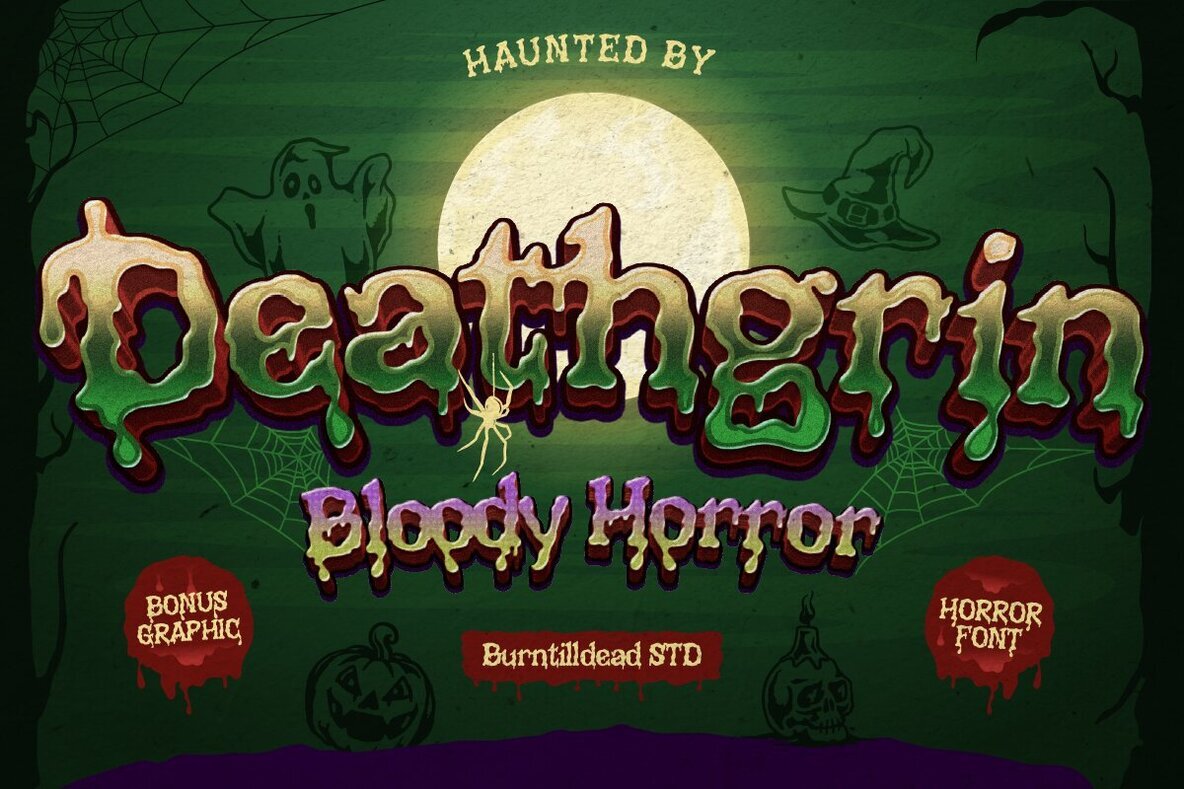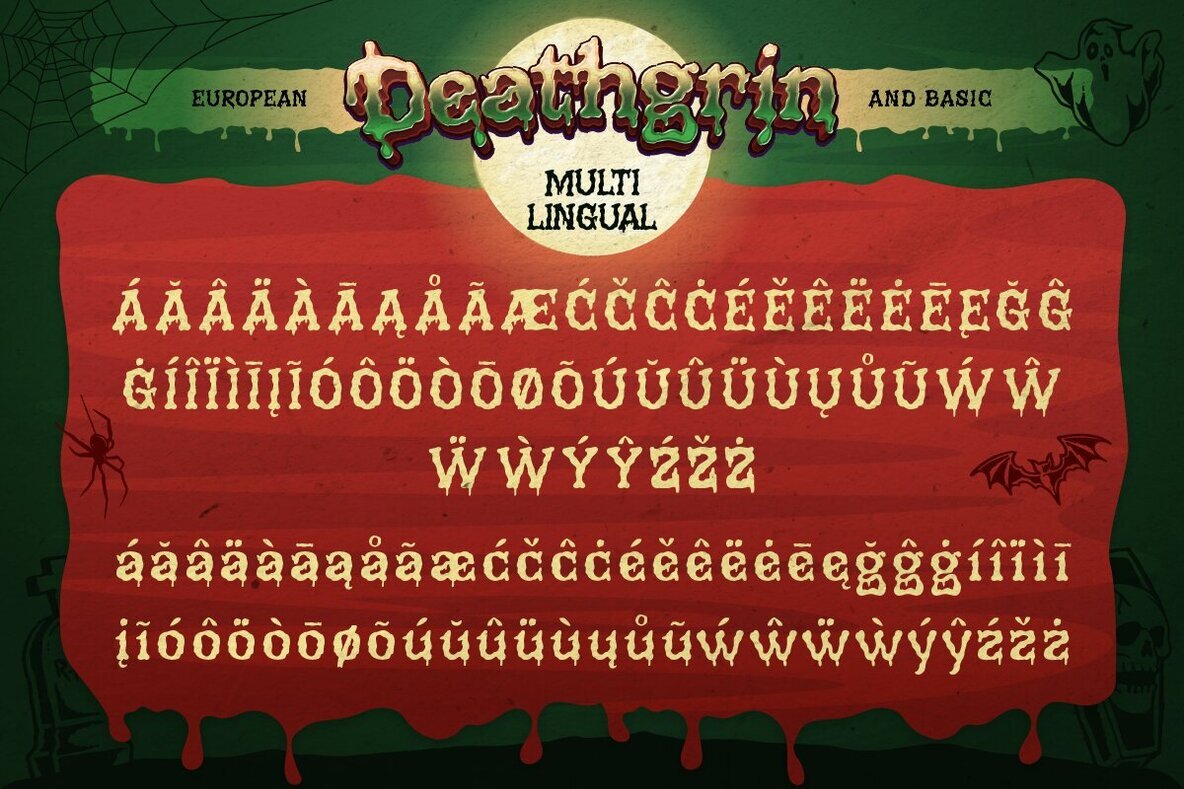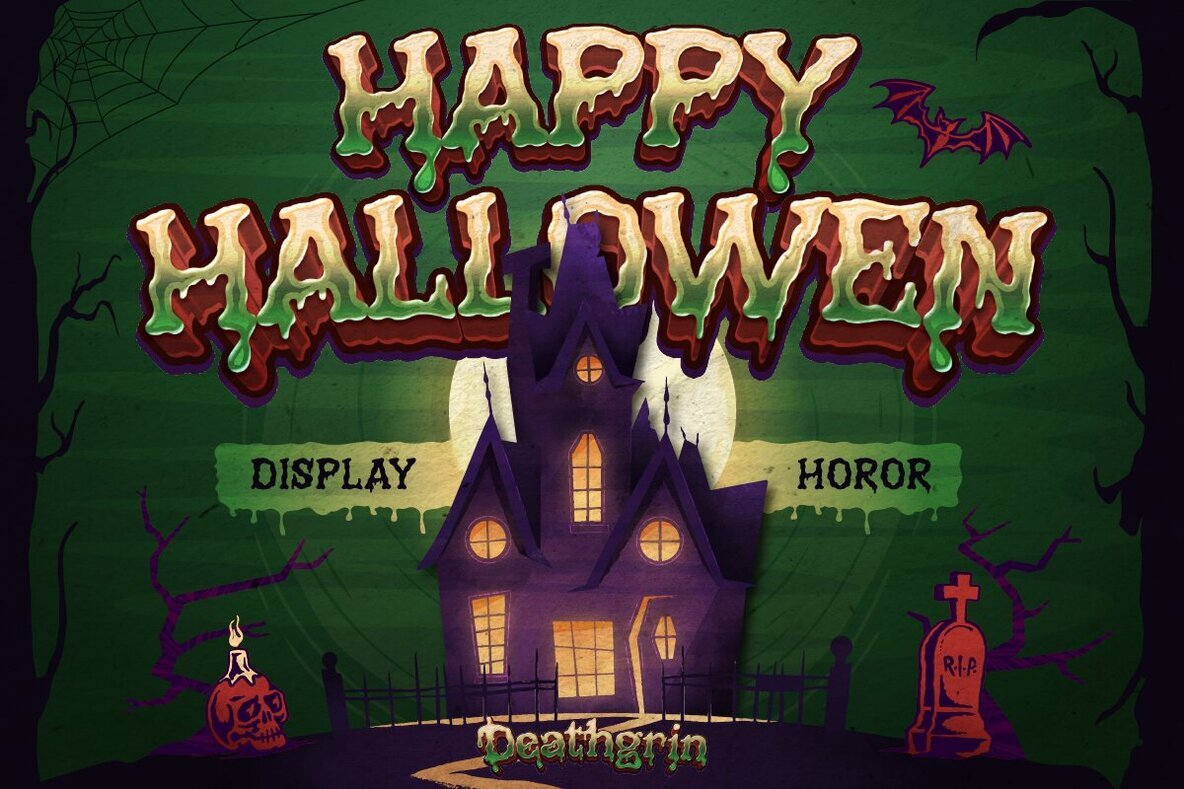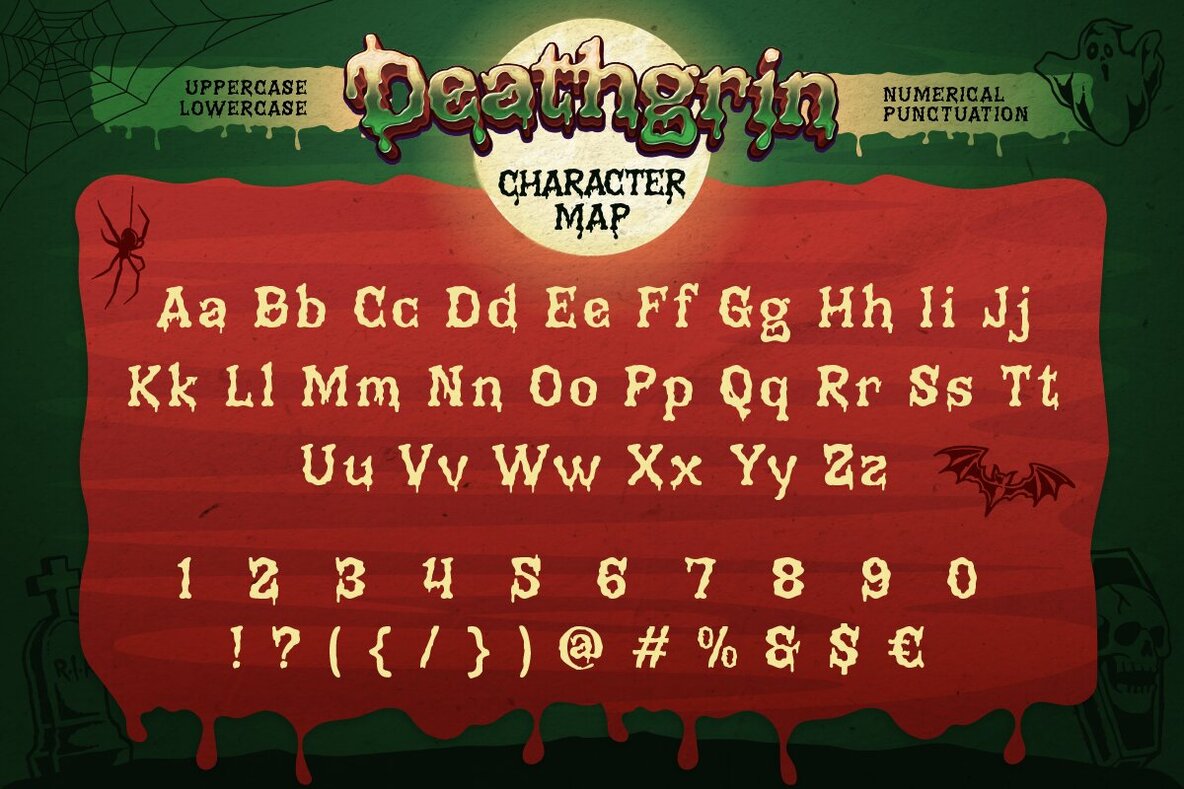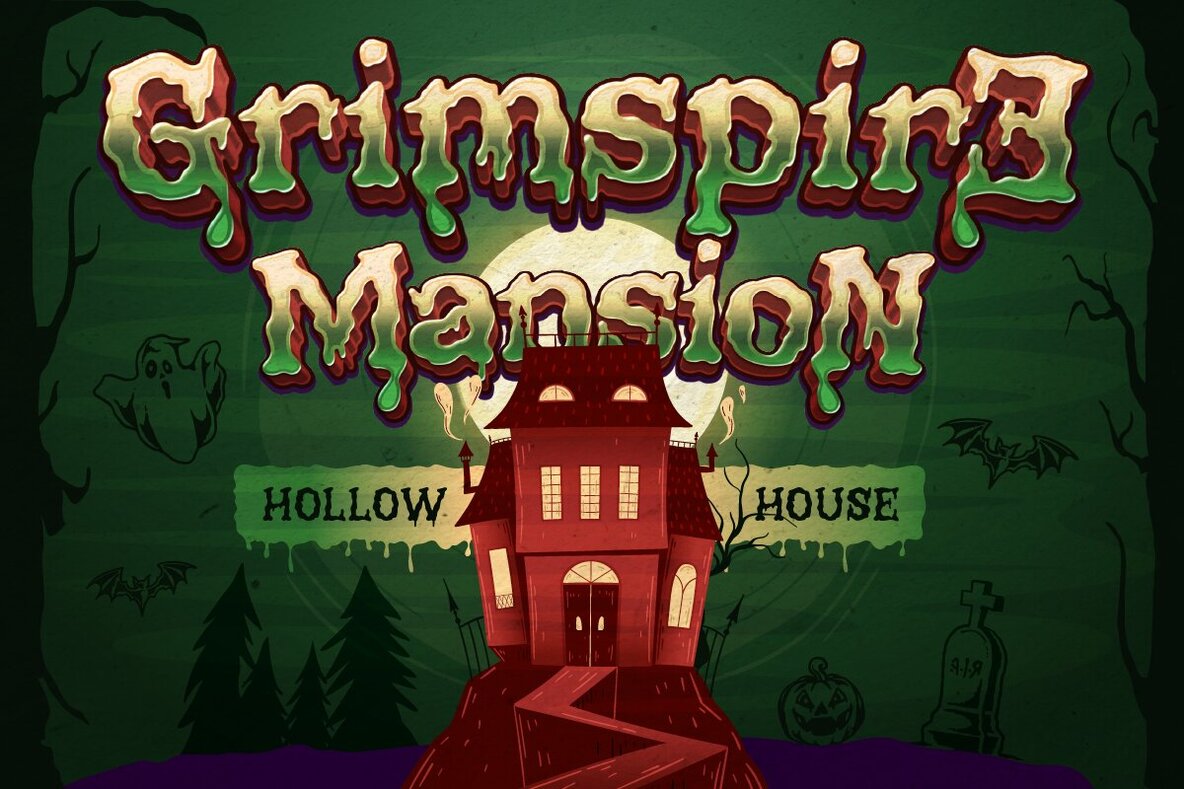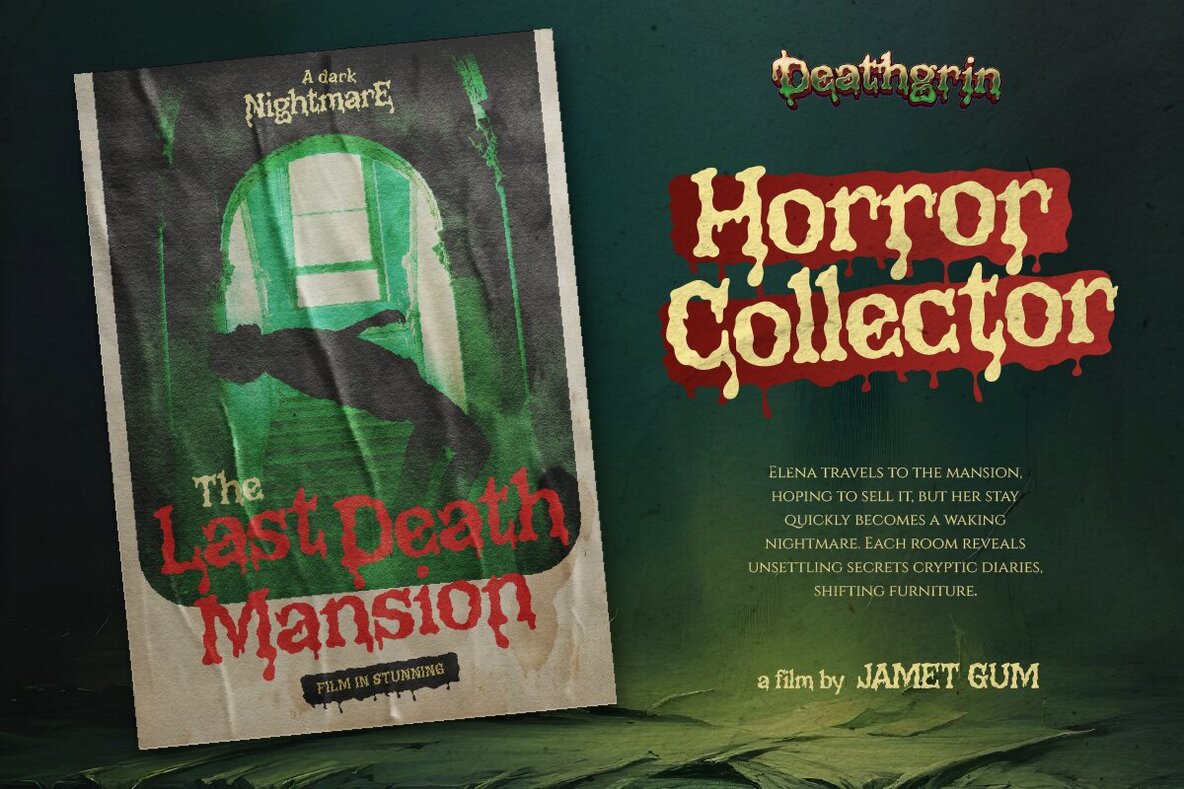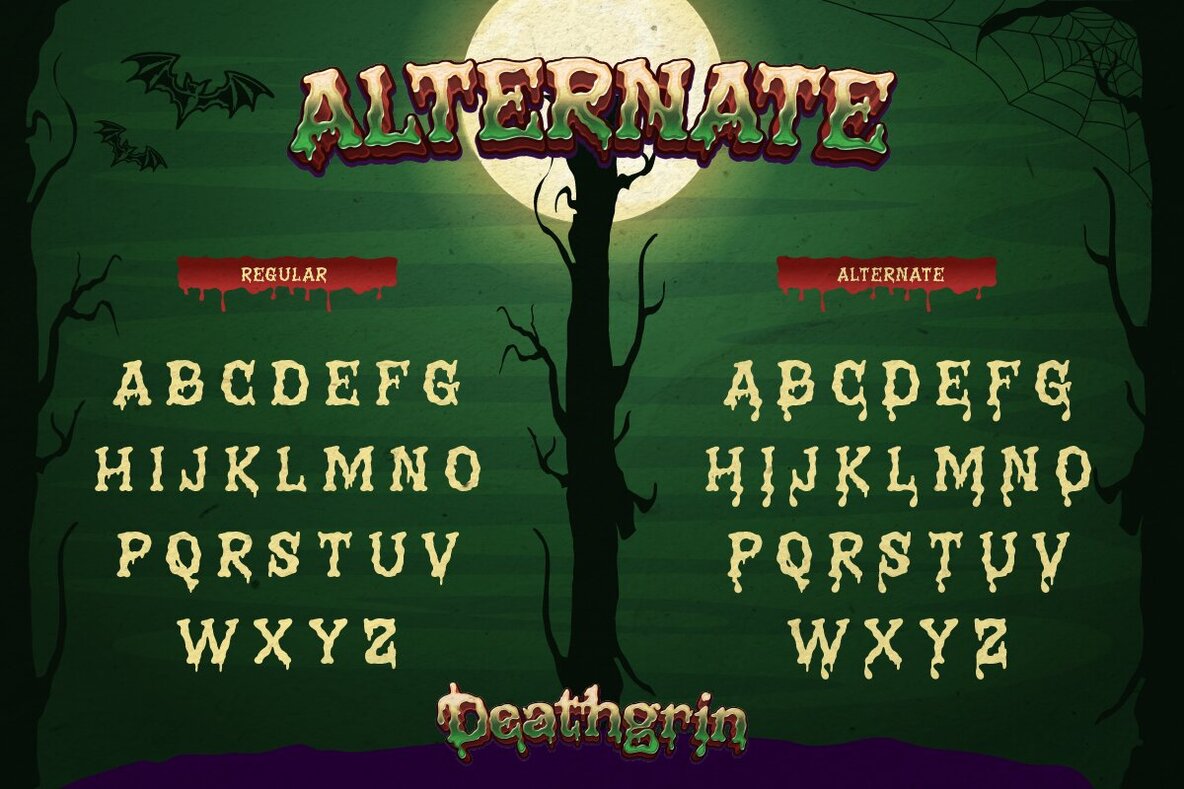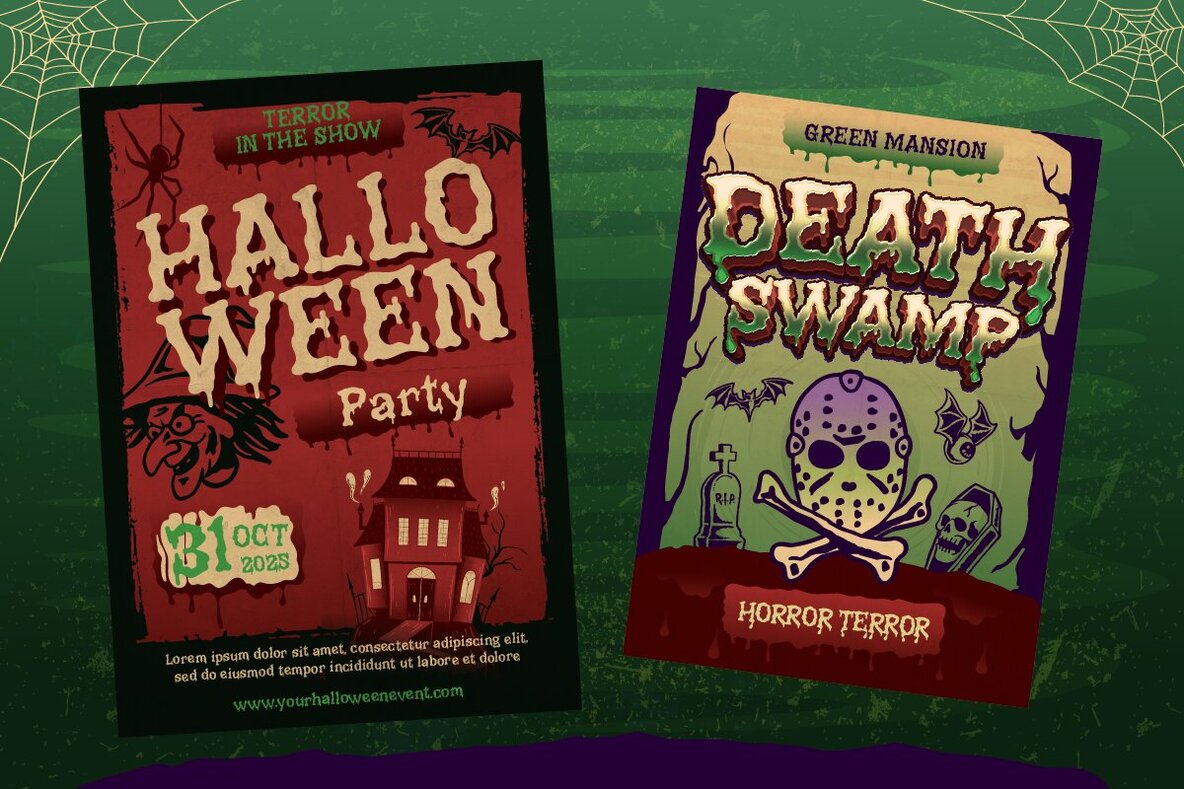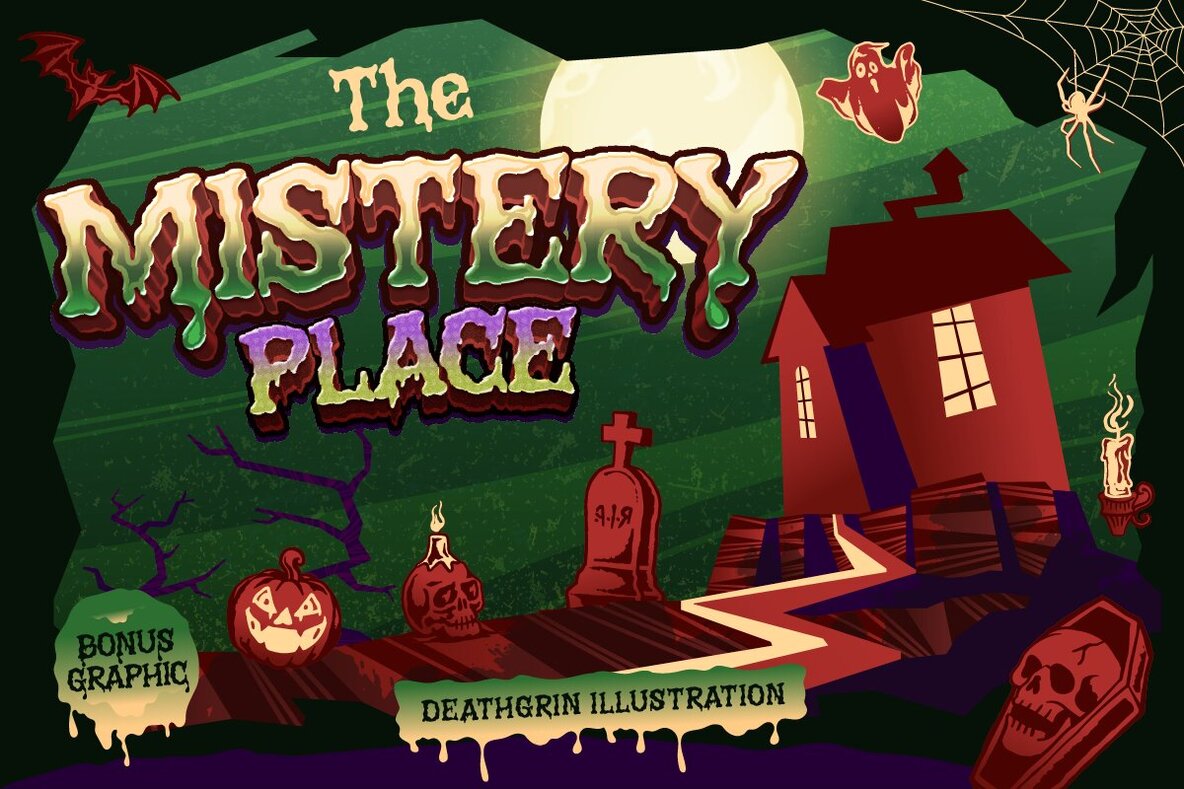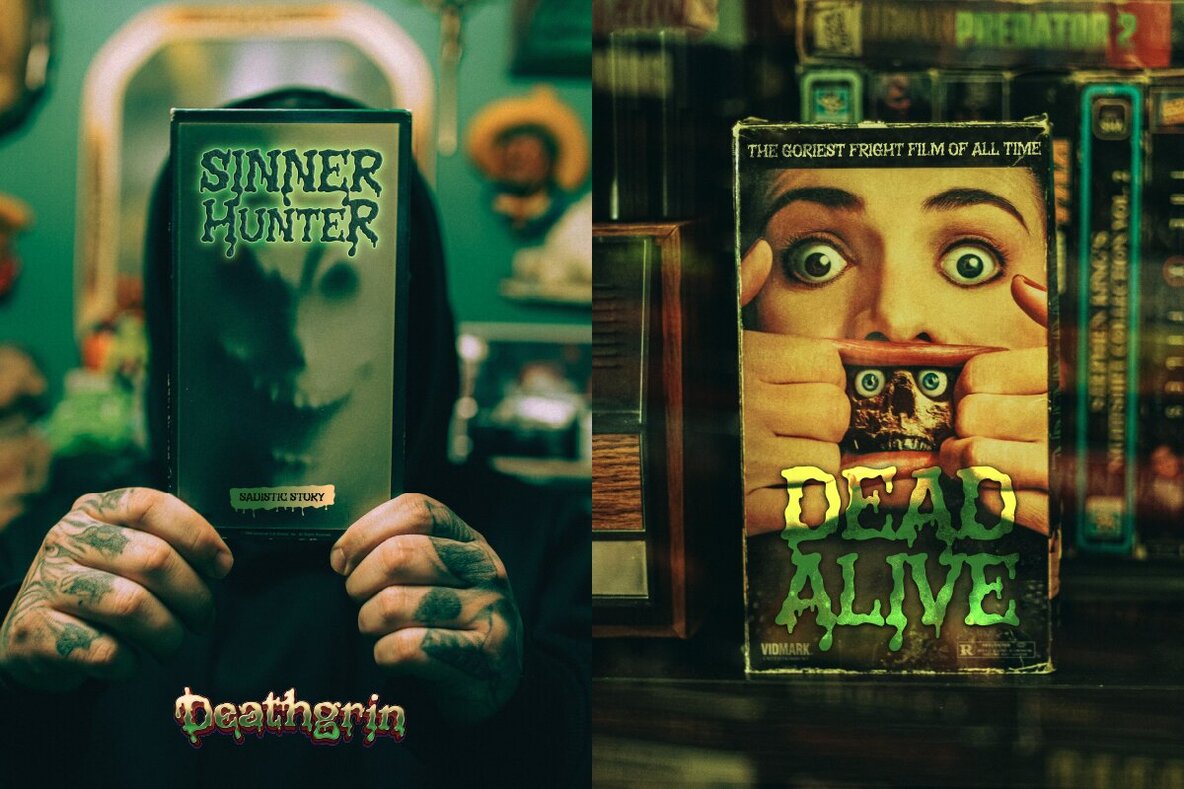
Deathgrin Font
Deathgrin Regular
Deathgrin Illustration
Unleash the eerie essence of Halloween with Deathgrin, a chilling horror typeface crafted to infuse your projects with a gripping haunted appeal. The hand-drawn, irregular letterforms boast a bloody, slimy texture perfect for any spooky creation. Each character appears scratched or melted into form, offering your titles and headlines a sinister, energetic vibe. Enhance your designs with the included illustration pack, featuring hand-drawn icons like witches, bats, pumpkins, coffins, dripping candles, and eerie skulls. These graphics beautifully complement the font, helping you design a spooky, cohesive visual experience across different mediums — be it posters, stickers, social media content, or packaging. This font captures the chaotic, eerie fun of the spooky season, making it an ideal choice for haunted house flyers, Halloween party invites, horror movie titles, or any project that requires a dramatic, spooky impact.Embrace the Spook with Deathgrin Typeface
Added Bonus: Spooky Illustration Pack
Features of Deathgrin